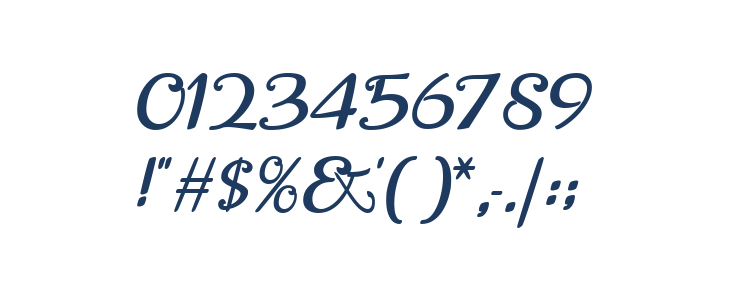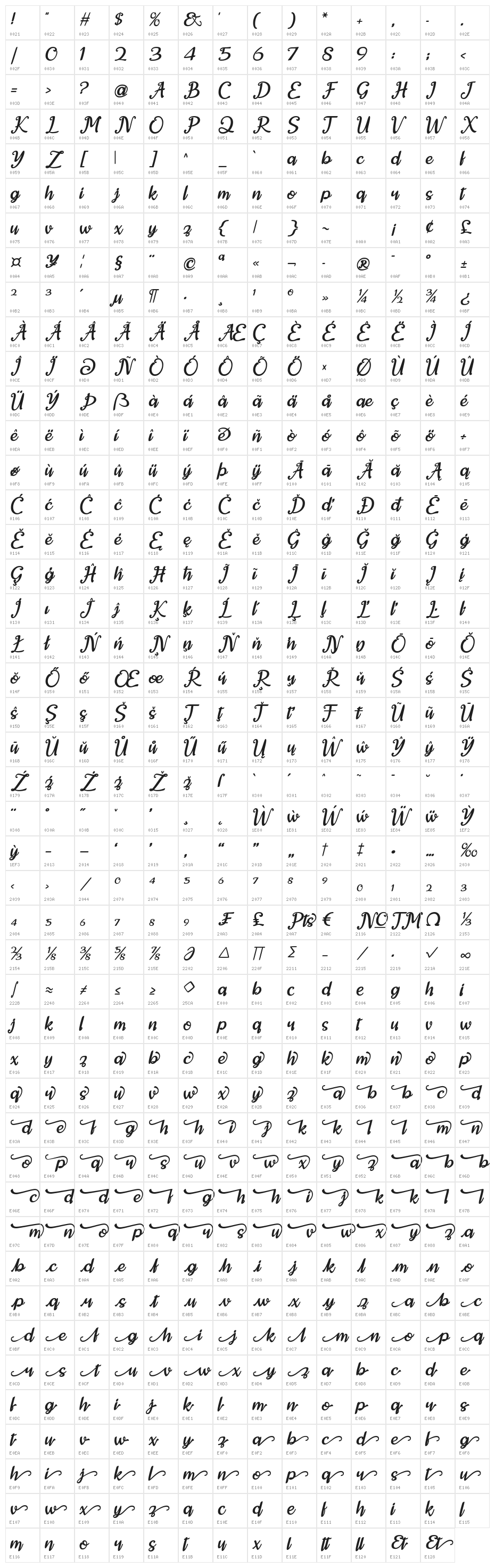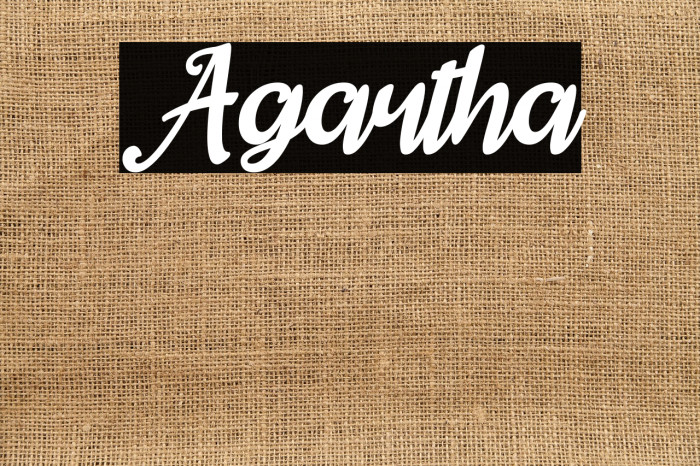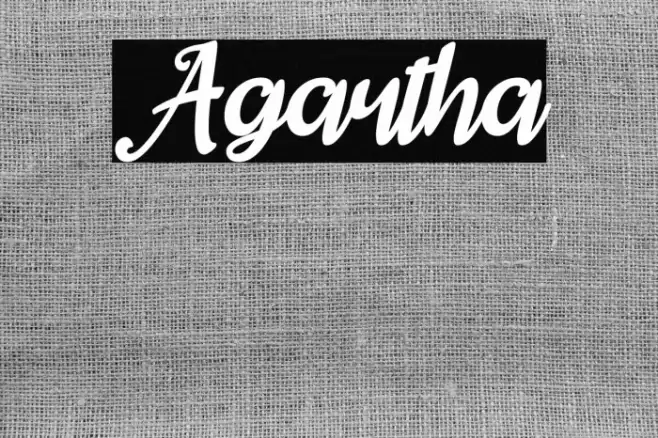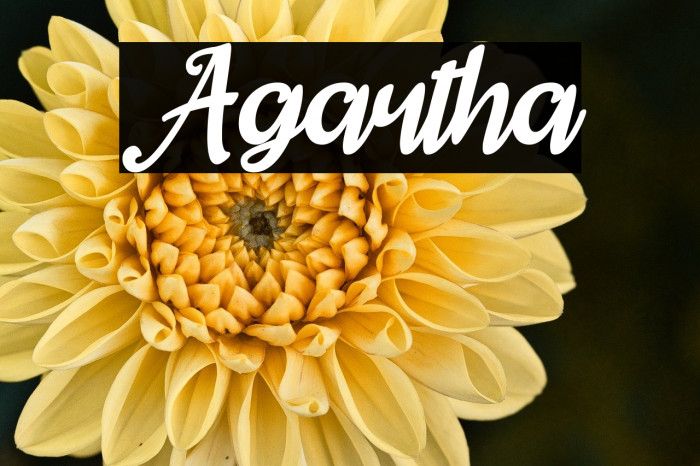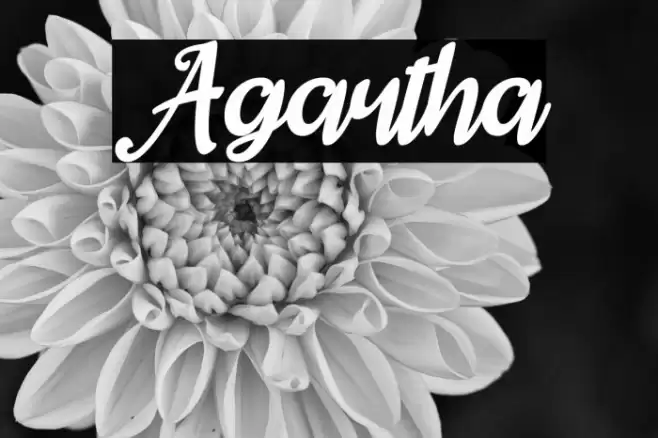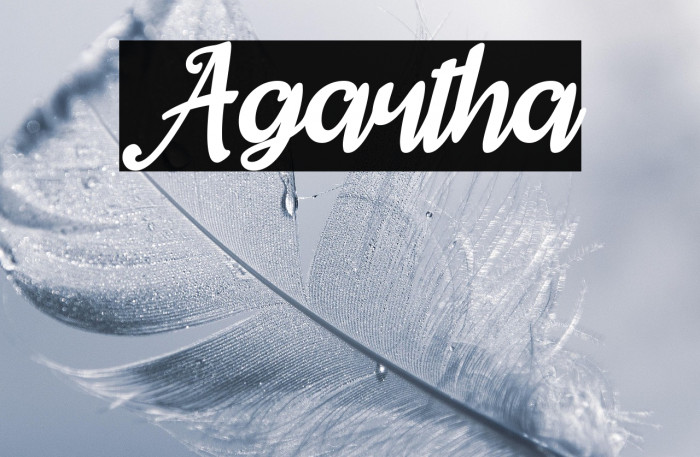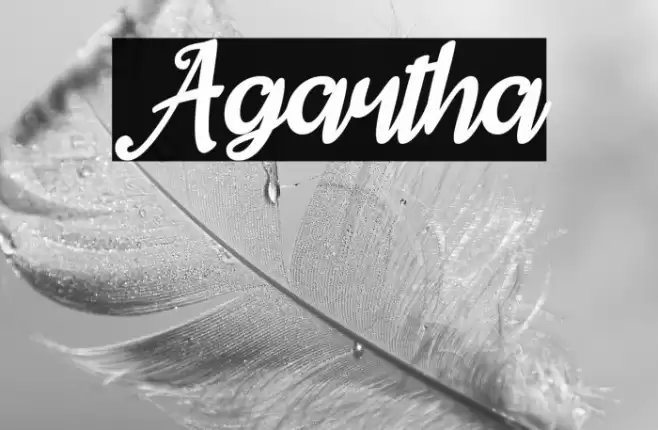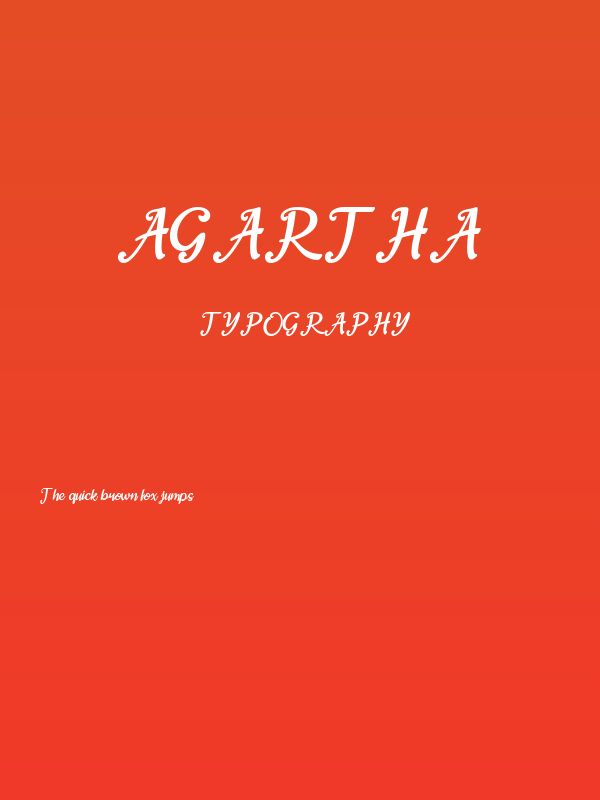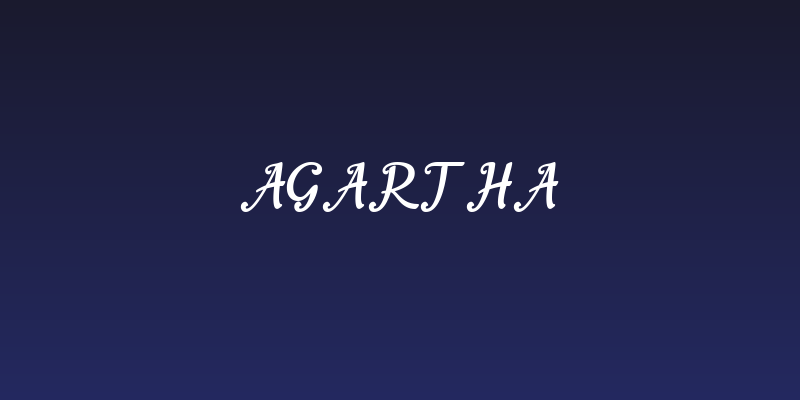
Agartha Font
Agartha Description
This font features a dynamic and flowing script style with a modern twist. The uppercase letters are elegant and slightly slanted, giving a sense of movement and grace. The lowercase letters are bold and expressive, with a playful yet sophisticated appearance. The numbers are consistent with the overall style, maintaining a balance between readability and artistic flair. The special characters are well-integrated, complementing the font's aesthetic. This font is versatile, suitable for a variety of creative projects that require a touch of elegance and personality.
| Proposed Projects | Ideal for wedding invitations, branding, logos, and elegant packaging designs. |